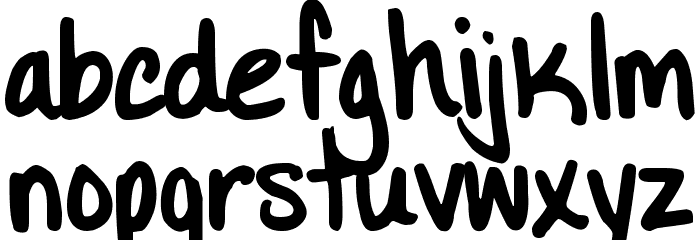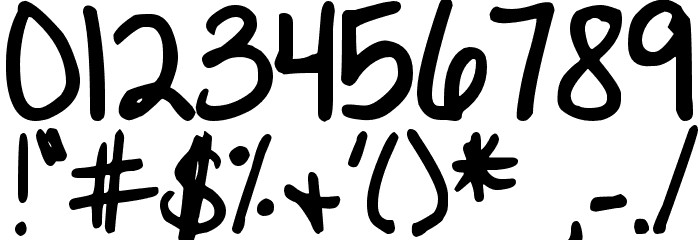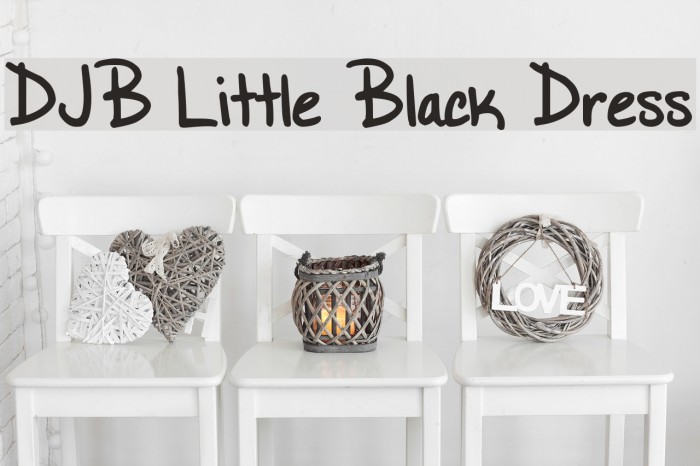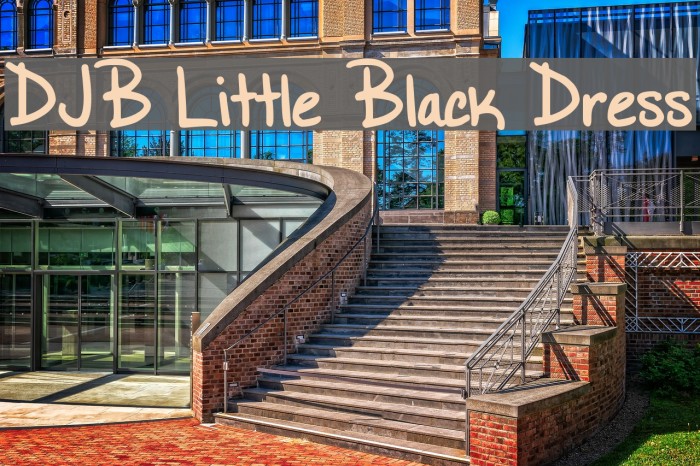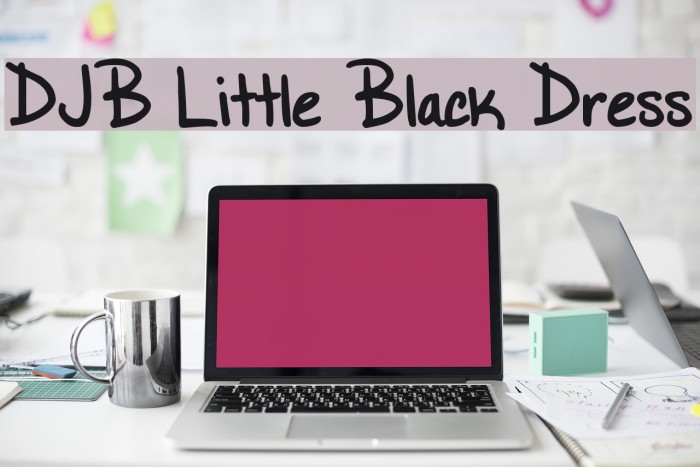
DJB Little Black Dress Font
This playful and casual handwritten font exudes a sense of fun and creativity. The letters are bold and slightly irregular, giving them a lively and informal appearance. The uppercase and lowercase characters maintain a consistent style, with rounded edges and a smooth flow. Numbers and special characters are designed to match the overall aesthetic, ensuring a cohesive look across all text. The font's informal nature makes it ideal for projects that require a personal touch, such as invitations, greeting cards, or children's book illustrations. Its boldness ensures readability, while the handwritten style adds a unique charm.
A playful, bold handwritten font with a casual and creative vibe.
- Proposed Projects: Ideal for invitations, greeting cards, children's books, and creative projects.
- Overall Style: Casual
- Use Case: Headlines, Logos, Creative projects